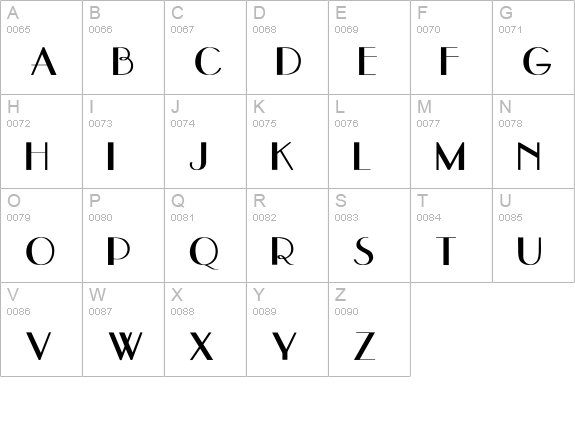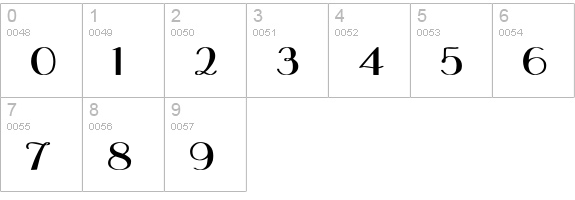
UppEa Bold is a strong, high-contrast variant in the UppEa typeface family \xE2\x80\x94 well suited to headlines, attention-grabbing titles, and strong calls-to-action.
Introducing UppEa Bold, a captivating and versatile font that exudes confidence and sophistication. With its bold and commanding presence, UppEa Bold is the perfect choice for any design project that requires a strong and impactful typographic statement. This unique font beautifully combines clean lines and sharp edges, creating a modern and edgy aesthetic that effortlessly captures attention. Its bold strokes and powerful letterforms make UppEa Bold an exceptional choice for headlines, titles, logos, and any other design element that needs to make a bold statement. But what truly sets UppEa Bold apart is its incredible versatility. Whether you're working on a sleek corporate brochure, a trendy magazine layout, or a cutting-edge website design, UppEa Bold adapts flawlessly to any context, seamlessly blending with various design styles and enhancing the overall visual impact. And the best part? UppEa Bold is freely available to download at FontsMarket.com. Yes, that's right! You can enjoy the striking elegance and commanding presence of UppEa Bold without breaking the bank. Simply visit FontsMarket.com, and with just a few clicks, you'll have this powerful font at your fingertips, ready to elevate your design projects to new heights. So why wait? Unlock the potential of your designs with UppEa Bold, the font that embodies strength, style, and sophistication. Download it for free at FontsMarket.com and let your creativity flourish.